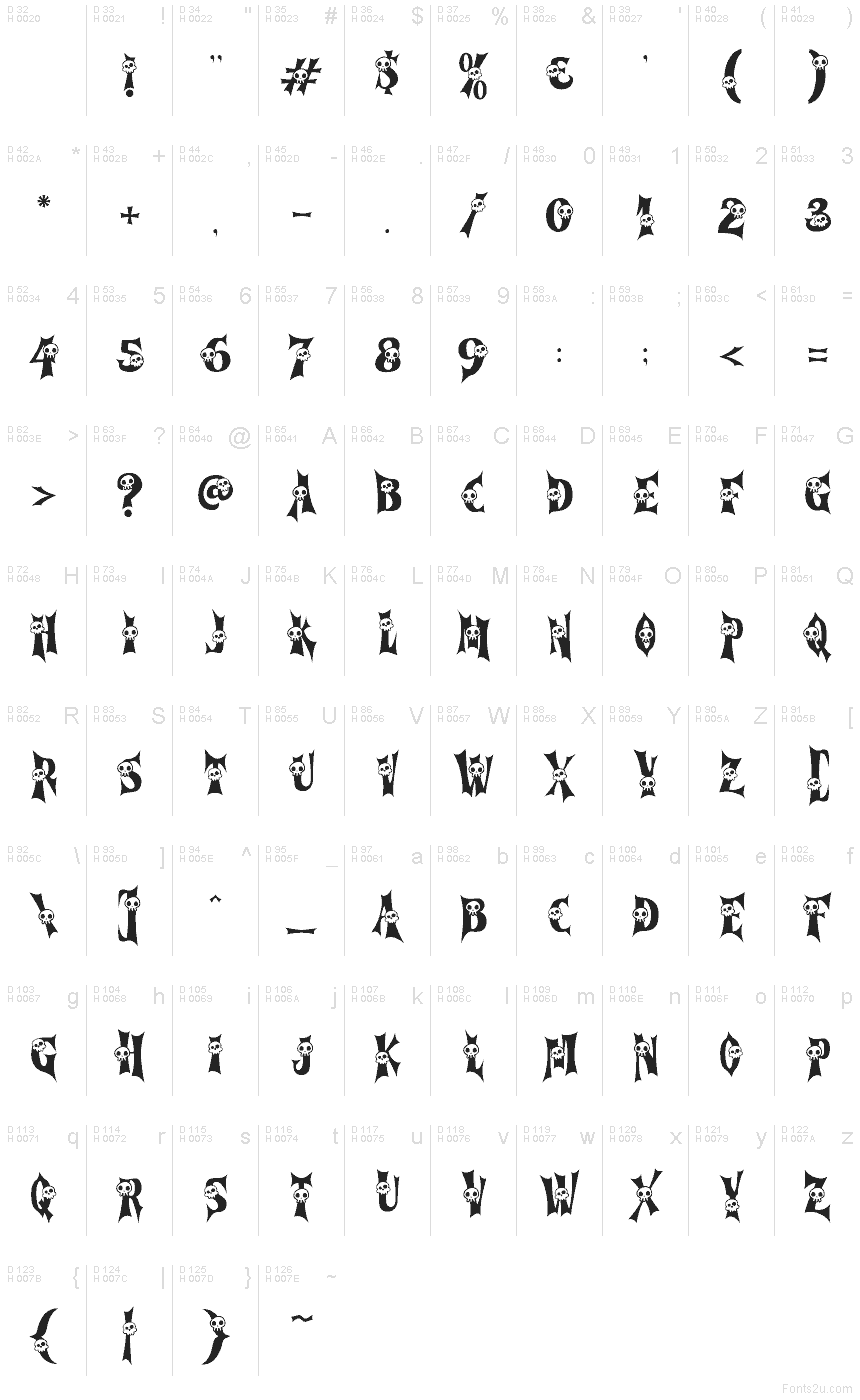
Cursed Gothic Skull
Cursed Gothic Skull font by PutraCetol Studio is a free Halloween display font. Built in the Cursed Gothic family, its jagged, spear-like strokes are threaded with bone‑white skulls, creating a wicked rhythm that reads fast and hits hard. The high contrast and sharp silhouettes feel inky and hand‑carved, making headlines look like ritual lettering ripped from a haunted poster.
Using Cursed Gothic Skull, you can punch up haunted house flyers, party invites, horror game logos, merch, YouTube thumbnails, candy labels, and spooky social posts. This free font shines at large sizes where the skulls pop; add a hair of tracking for breath. Pair it with a plain, modern sans for captions to keep the chaos contained.